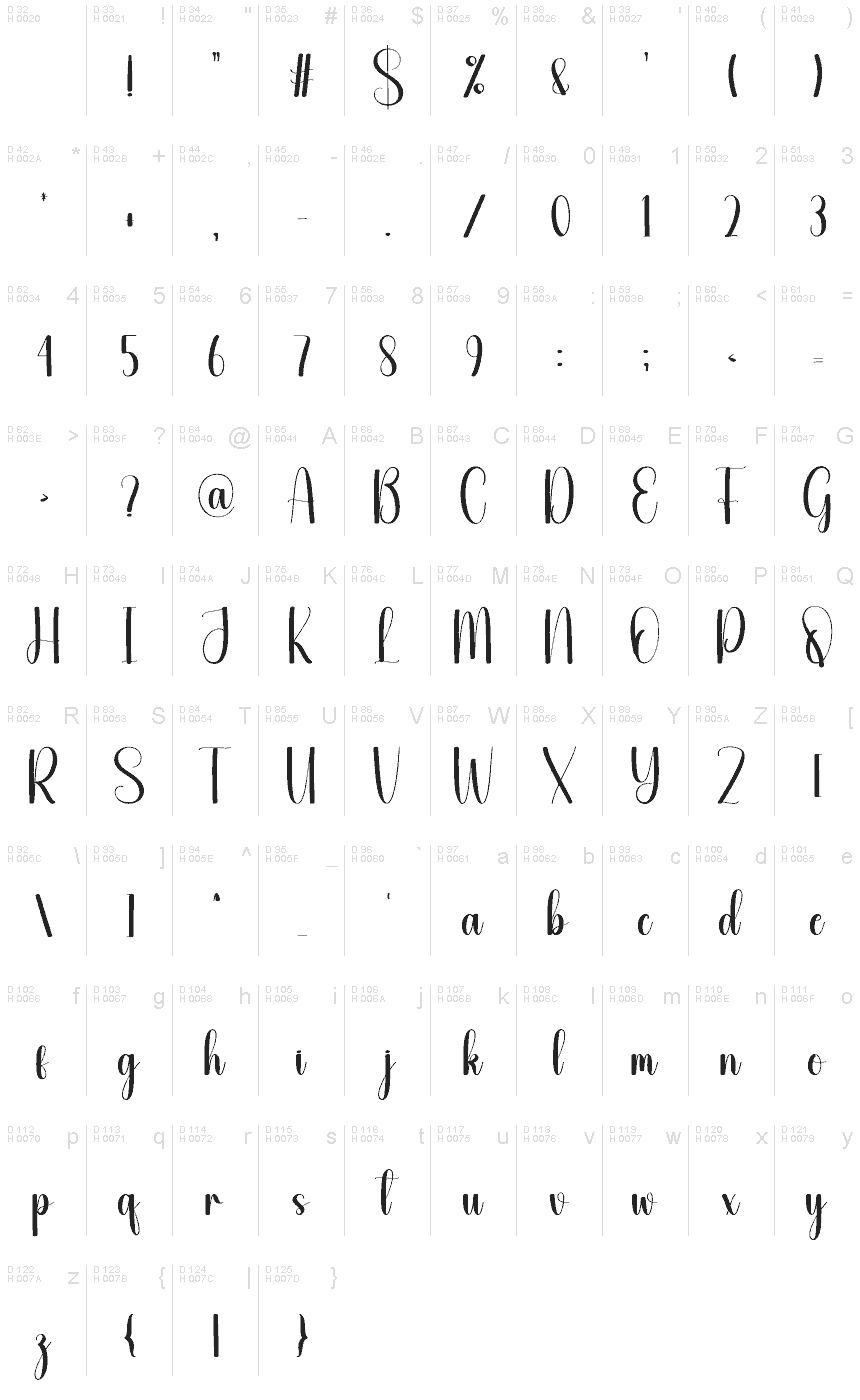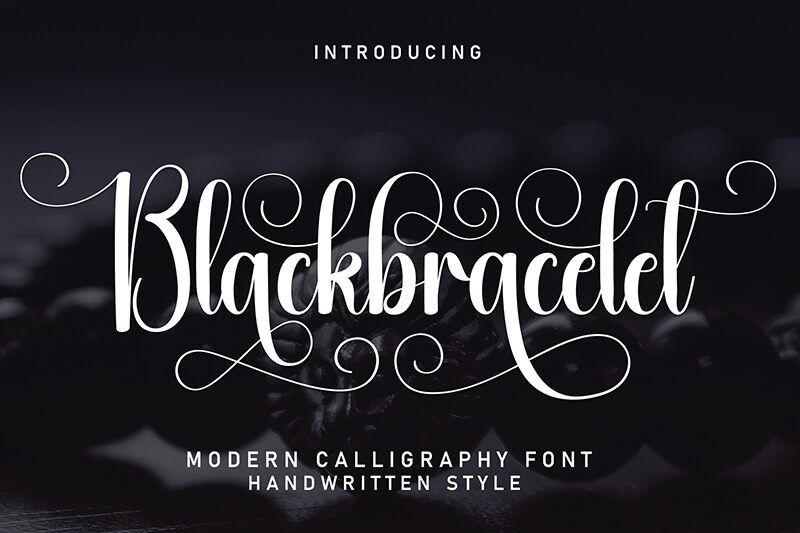
Blackbracelet
Blackbracelet font is a condensed calligraphy typeface designed by Andi Moz. Its elegant, flowing letters are connected in a decorative and sophisticated manner. Expressive lines give an artistic edge to the overall appearance and deliver excellent results in print and web projects.